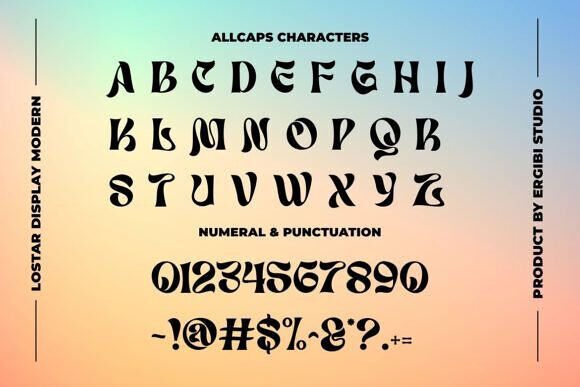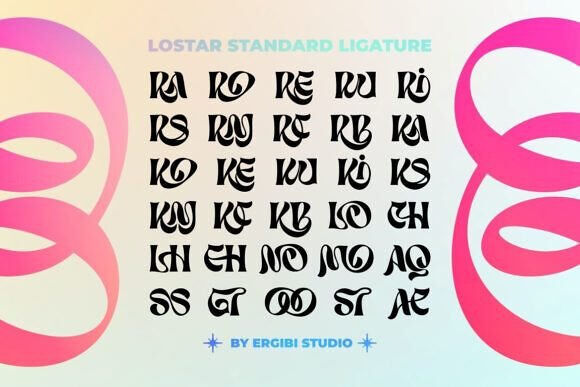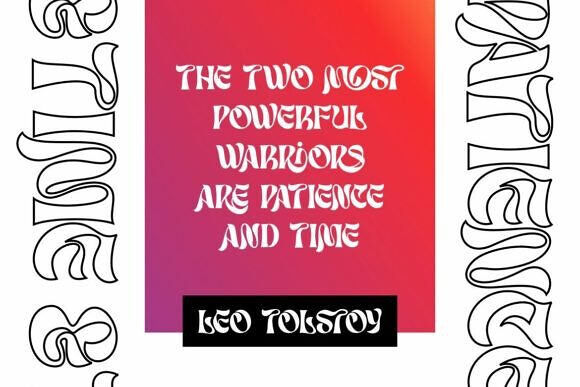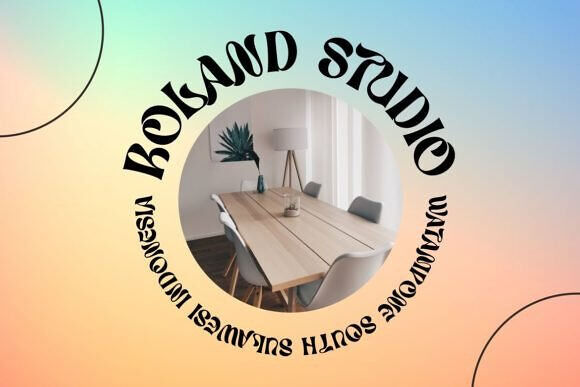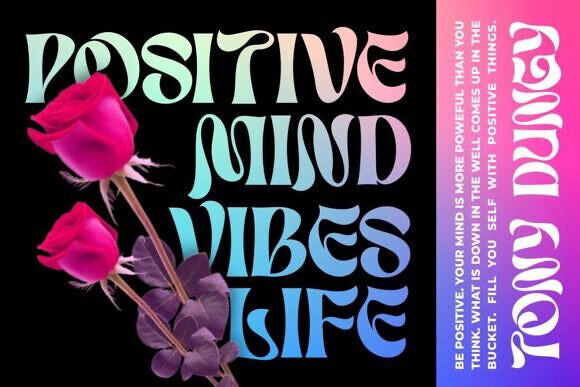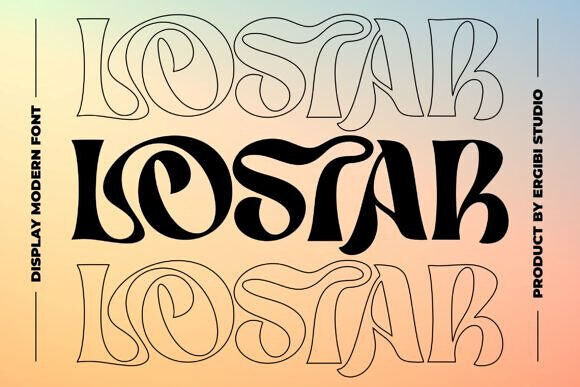
Lostar Font
Lostar is a modern serif font with a unique and bold letterform, making it great to be used for a modern and minimalistic design theme.
The unique ligatures on the serif make this typeface cool and stand out rather than the regular serif font, perfect for headlines, logos, posters, packaging, T-shirts, coffee shops, restaurants, magazine headers, signs or gift/postcards, cafes, and weddings or any type of advertising purpose.